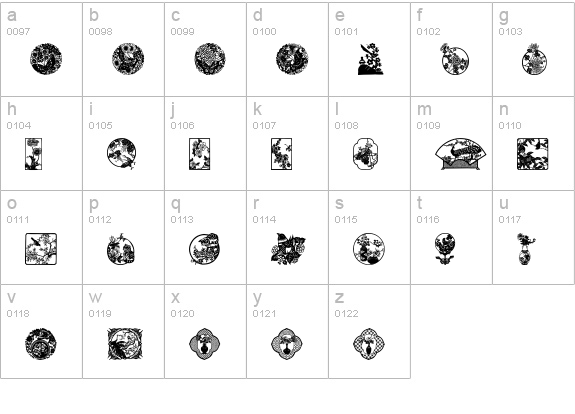
Oriental View Font Details
Oriental View font is a stunning display typeface that exudes elegance and sophistication. With its intricate details and artistic flair, this font is perfect for adding a touch of exotic charm to your designs. The intricate strokes and unique characters of Oriental View font make it truly stand out from the crowd. What makes Oriental View font even more appealing is that it is completely free to download. Yes, that's right - you can get your hands on this beautiful font at no cost! Simply head over to FontsMarket.com and start using Oriental View font to bring a touch of the East to your projects. Whether you're working on branding, invitations, or any other design project, Oriental View font is sure to make a statement and leave a lasting impression. Don't miss out on this fantastic opportunity to elevate your designs with Oriental View font - download it for free today!